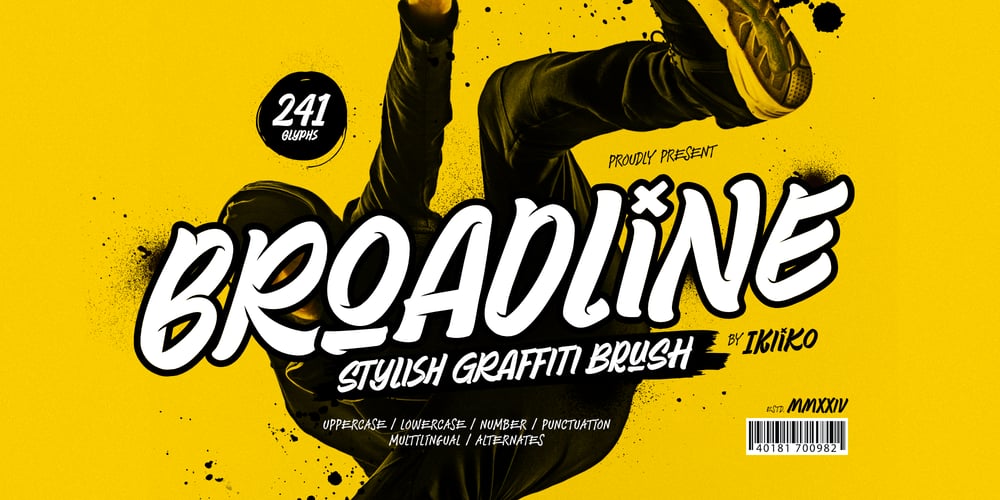
Broadline
Broadline font
Broadline Font Family was designed by Andhika Pradana and published by IKIIKOWRK. Broadline contains 1 styles and family package options. Proudly present Brockline – Stylish Graffiti Brush, created by ikiiko.Step aside, this urban culture font—Brockline is here to turn up the volume! This typeface is a full-on street style revolution, packing electric vibes with its graffiti-inspired brush strokes. It’s got that bold, in-your-face attitude and a playful cartoon twist that screams authenticity and rebellion.Whether you’re slapping it on wild street art, crafting logos with edge, or decking out the latest fashion trends, Brockline doesn’t just follow the trend; it sets it. With its killer blend of swagger and artistic flair, this font is the ultimate choice for anyone who wants their projects to pop with serious urban cool.This font is very suitable for making a urban street fashion, street wear, stylish poster event, magazine layout, packaging, food & beverages, quotes, or simply as a stylish text overlay to any background image.What’s Included? Uppercase & Lowercase Numbers & Punctuation Alternates Multilingual Support Works on PC & Mac Get also a good offer & FREEBIE at our site : www.ikiiko.comEnjoy our font and if you have any questions, you can contact us by email : ikiikowrk@gmail.com